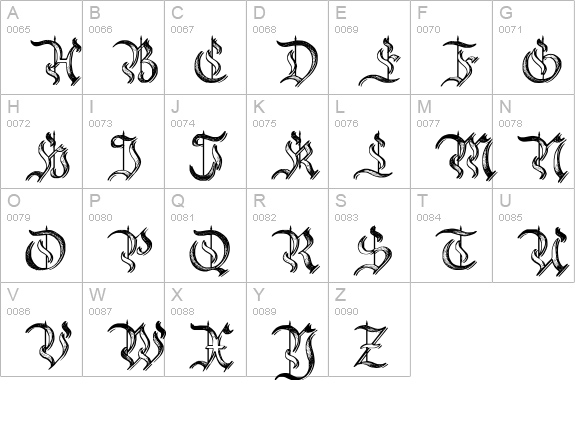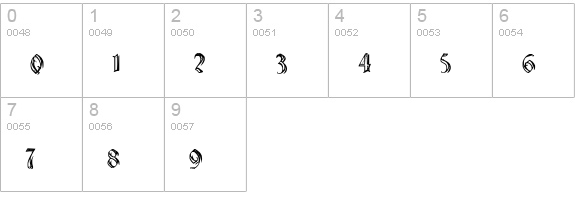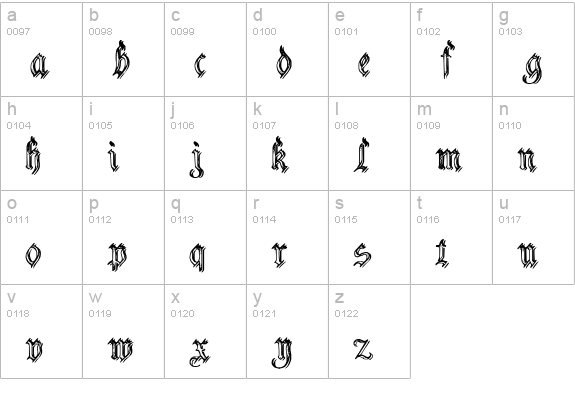
Charterwell No5 Font Details
Introducing Charterwell No5, a timeless and elegant font that effortlessly combines modern sophistication with classic charm. This exquisite typeface boasts graceful curves and clean lines, making it perfect for a wide range of design projects. Whether you're working on branding, invitations, or editorial design, Charterwell No5 is sure to add a touch of refinement to your work. What sets Charterwell No5 apart is not only its stunning aesthetic appeal but also its versatility. This font can adapt to various design styles, from minimalist to ornate, making it a fantastic choice for creatives looking to make a statement. With its delicate details and balanced proportions, Charterwell No5 exudes a sense of luxury and sophistication that is bound to captivate your audience. The best part? Charterwell No5 is completely free to download at FontsMarket.com, giving you the opportunity to elevate your designs without breaking the bank. Don't miss out on this fantastic opportunity to add a touch of elegance to your projects with Charterwell No5. Download it today and start creating stunning visuals that leave a lasting impression.